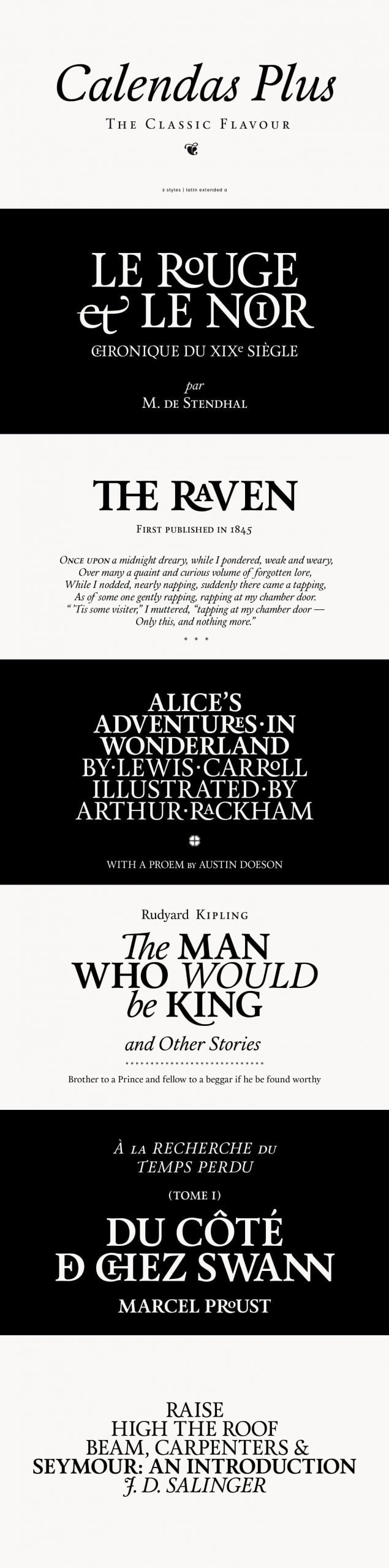
calendas plus Font
calendas plus Font is a serif typeface designed by Spanish studio Atipo in 2013. It’s based on an earlier typeface they created in 2010 called simply “Calendas”. The new version includes optical adjustments, new accents, small caps and ligatures. Calendas Plus is available in regular, italic and bold styles.